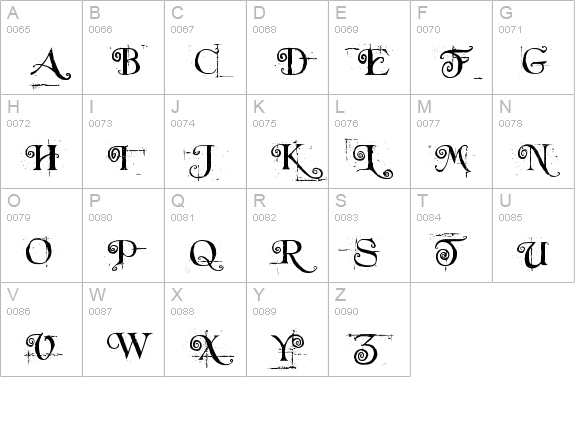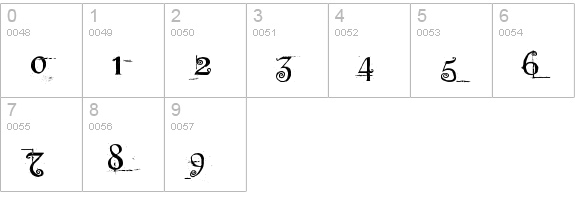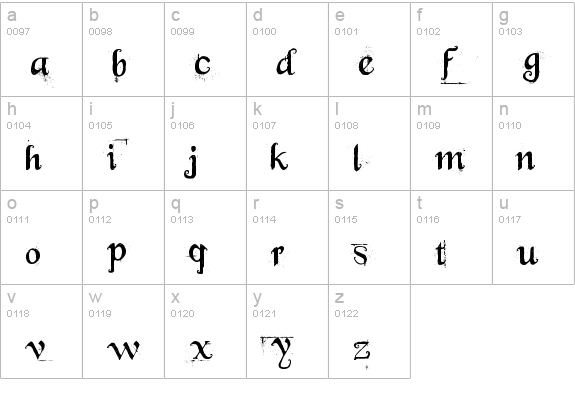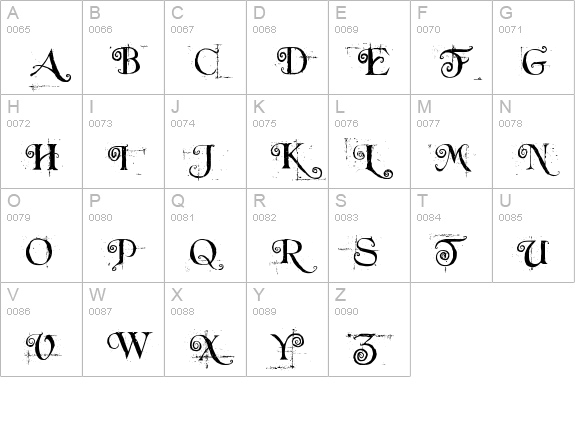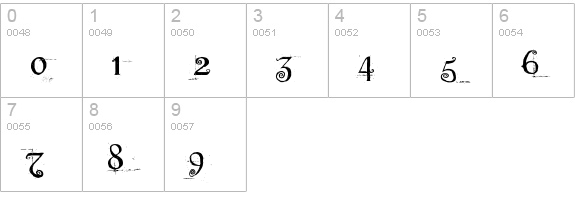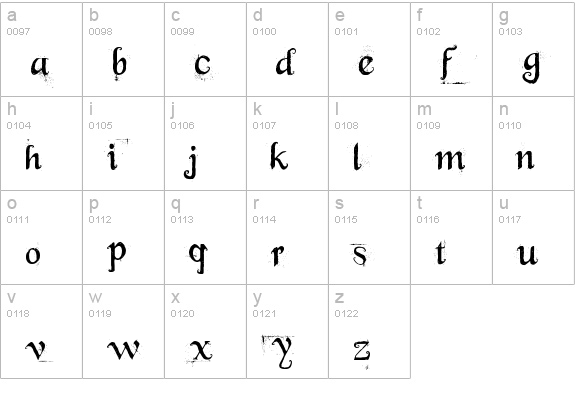
Beyond Wonderland Font Details
The Beyond Wonderland font is a whimsical and enchanting typeface that transports you to a magical realm of fantasy and imagination. With its intricate details and playful curves, this font captures the essence of a fantastical wonderland where dreams come to life. The elegant and flowing design of Beyond Wonderland adds a touch of elegance and charm to any creative project, whether it be invitations, posters, or branding materials. What makes Beyond Wonderland even more special is that it is freely available to download at FontsMarket.com. This means that you can easily access and use this captivating font in your designs without any hassle. Let the Beyond Wonderland font take you on a journey into a world of beauty and creativity, where anything is possible and the only limit is your imagination.